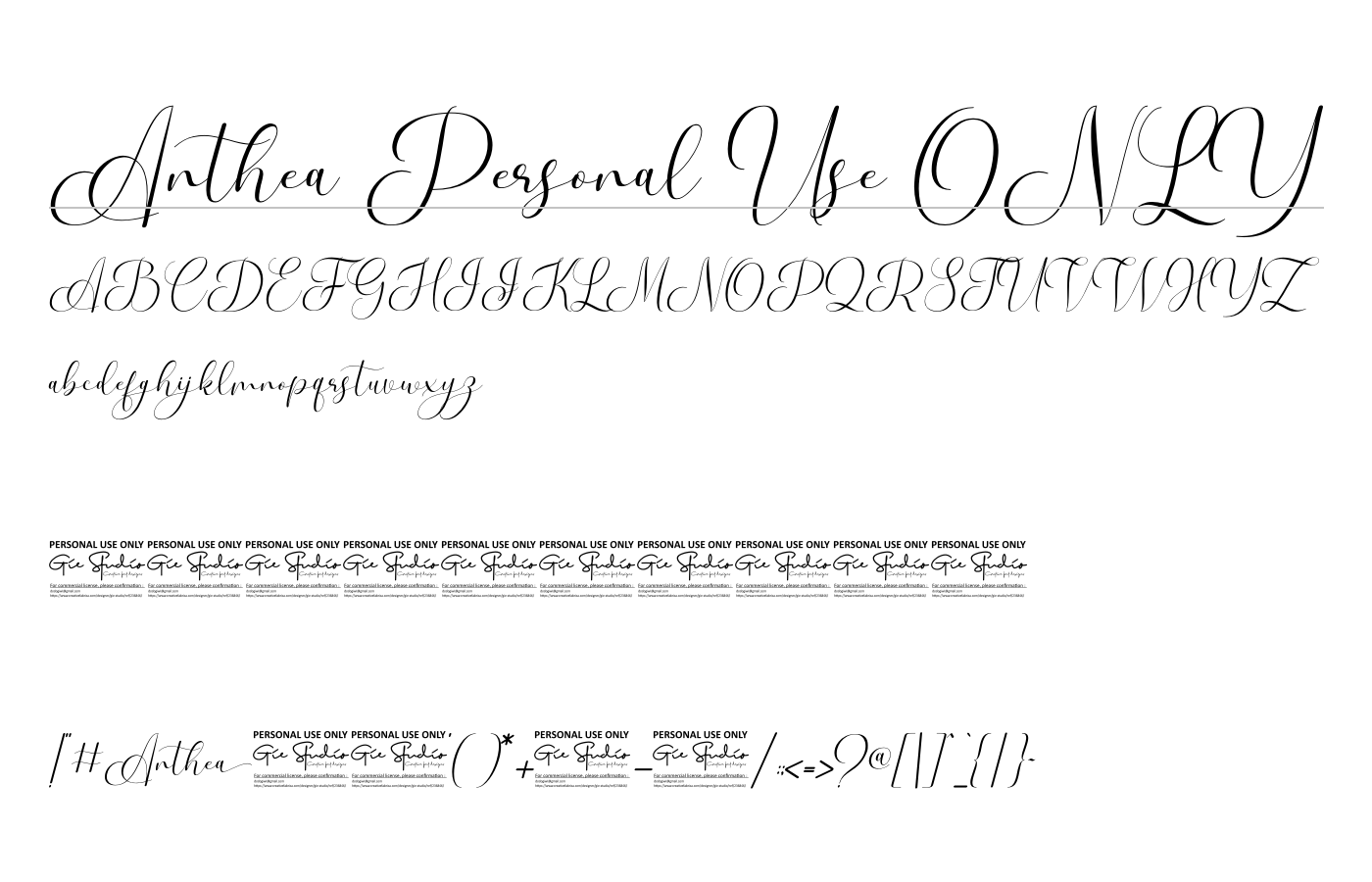
Anthea is an elegant, delicate script font with fine, flowing strokes that evoke a sense of grace and sophistication. Its high contrast and slender letterforms make it perfect for invitations, luxury branding, and refined editorial projects where a touch of femininity and charm is desired. This font works beautifully in large sizes for headlines or logos, adding a personal and artistic flair.
Anthea Personal Use ONLY Font
About Anthea Personal Use ONLY Font
| Font family | Anthea Personal Use ONLY Font |